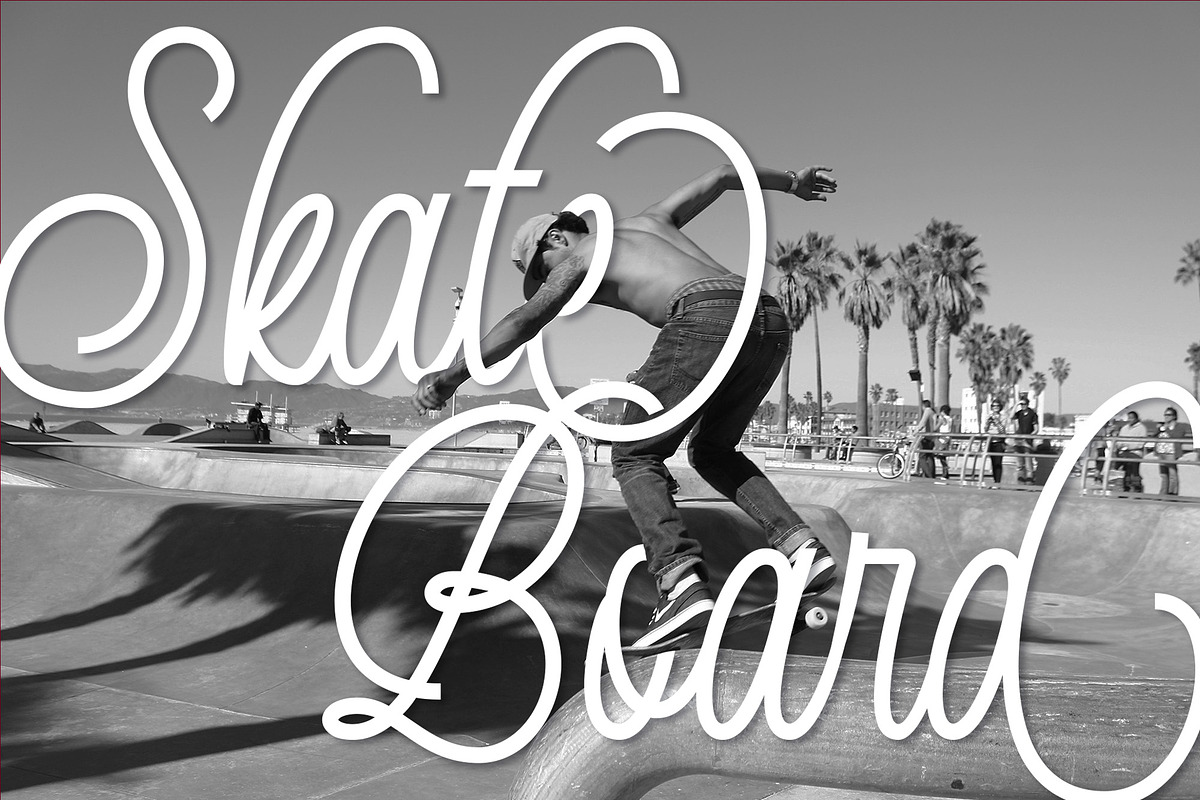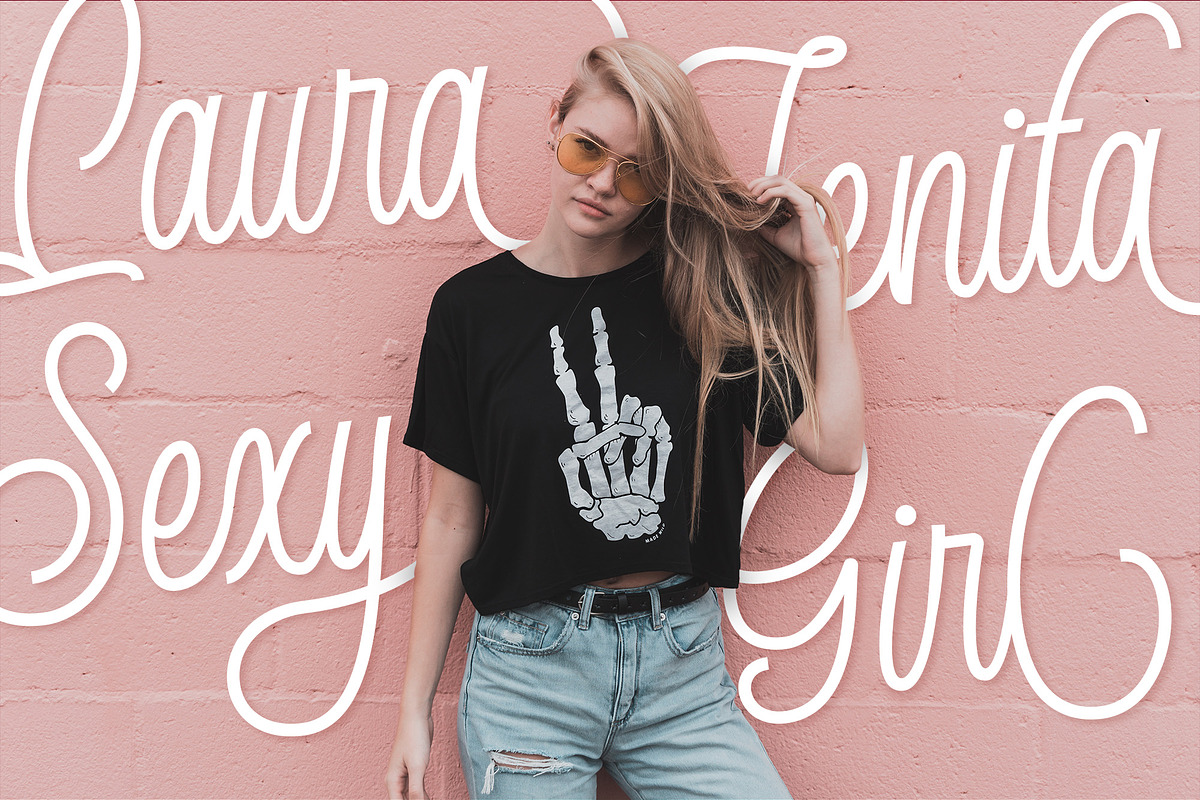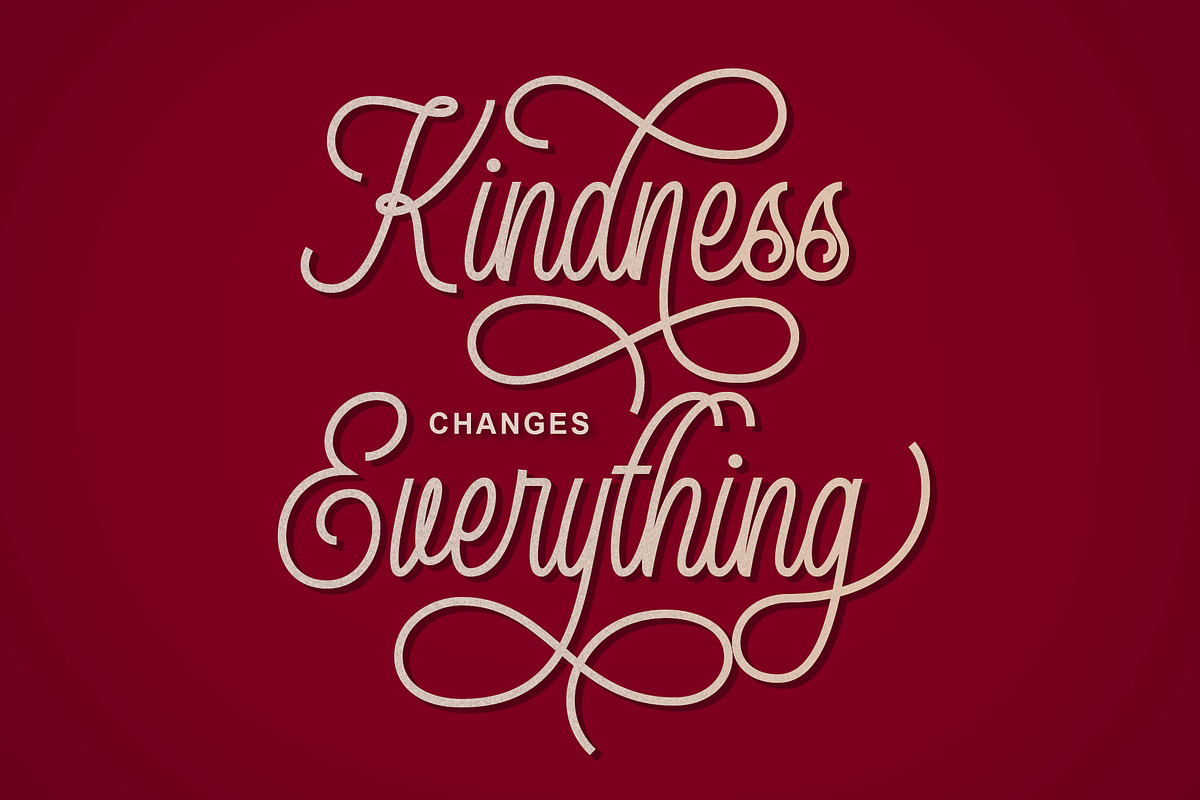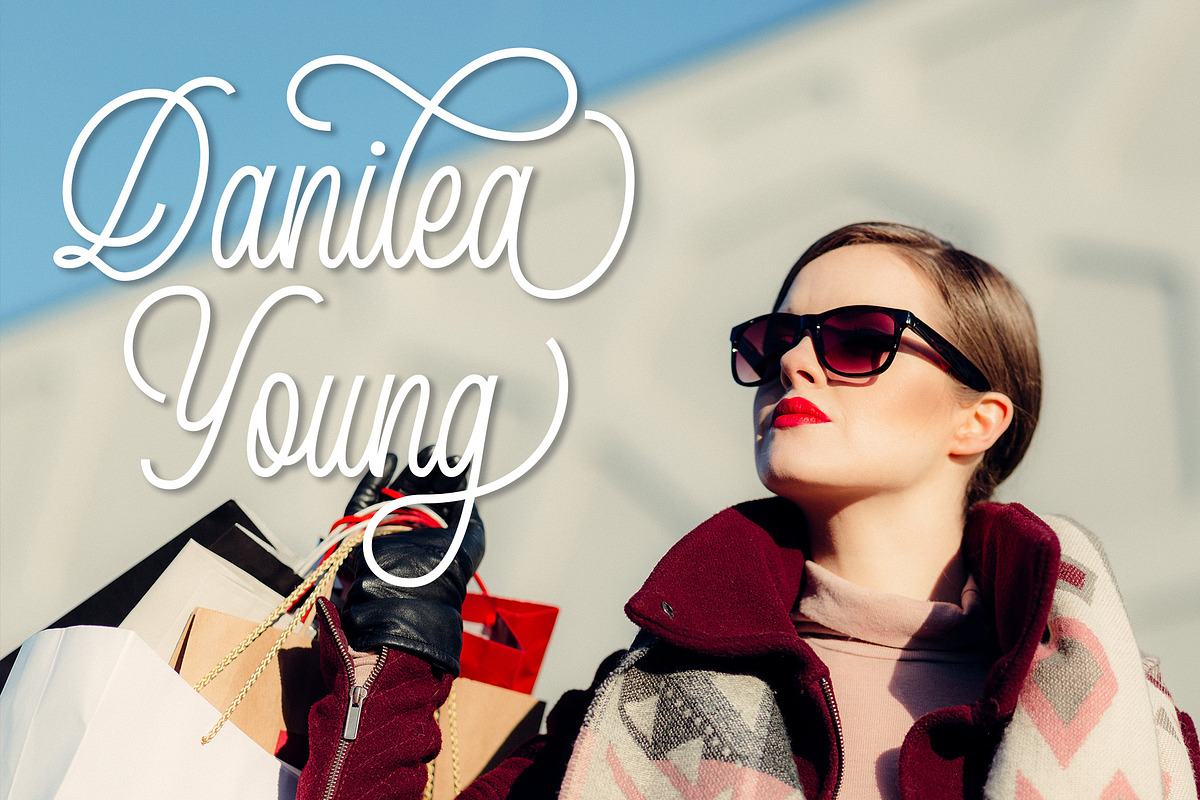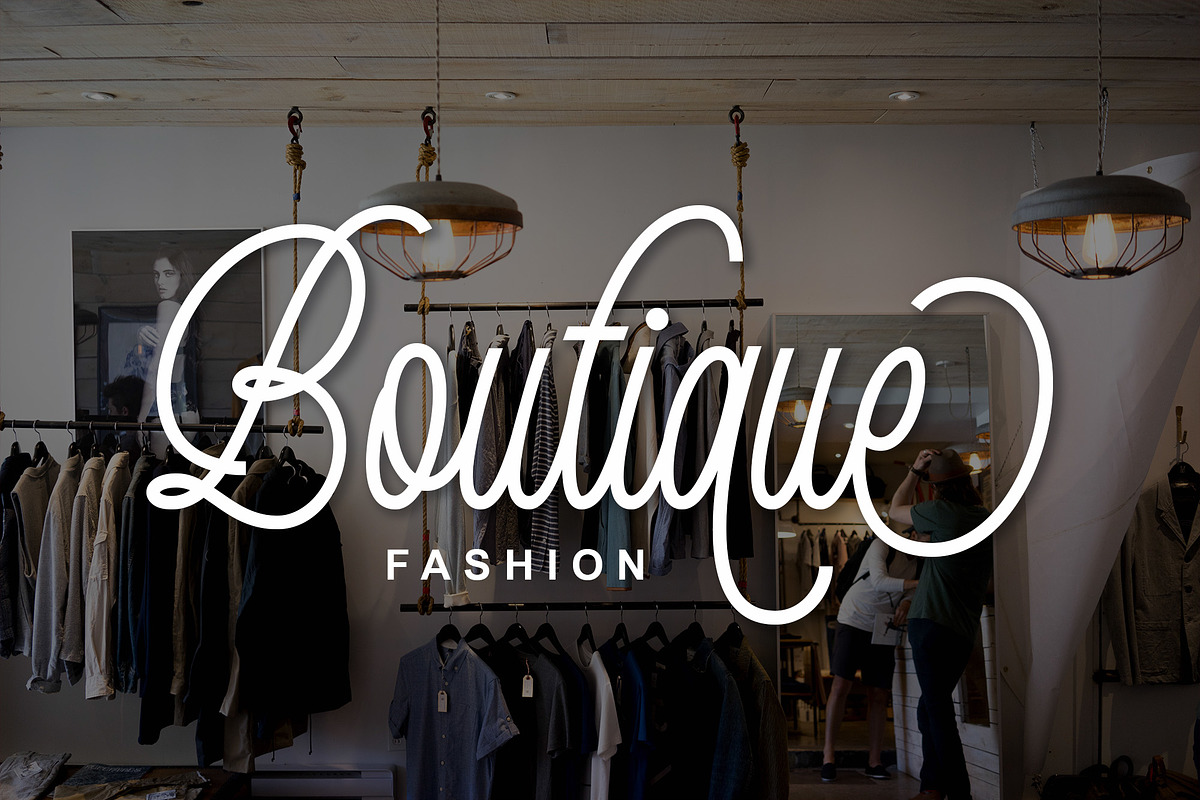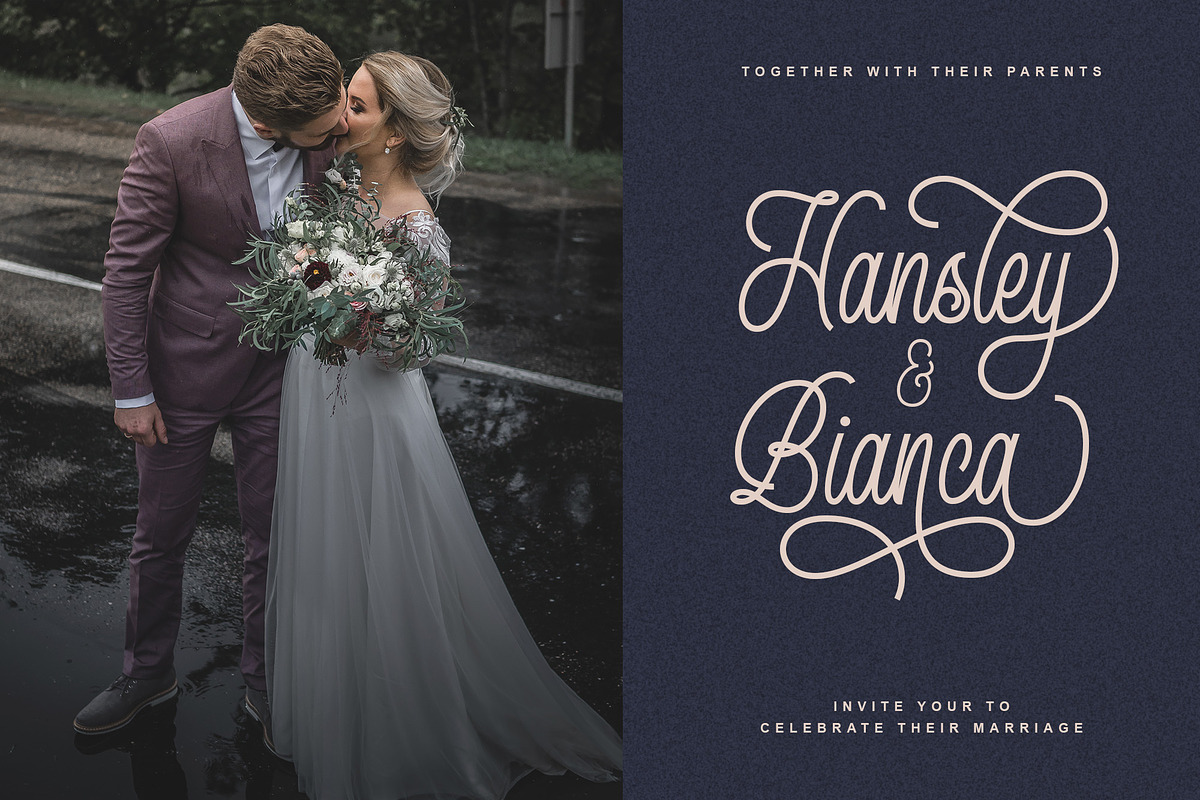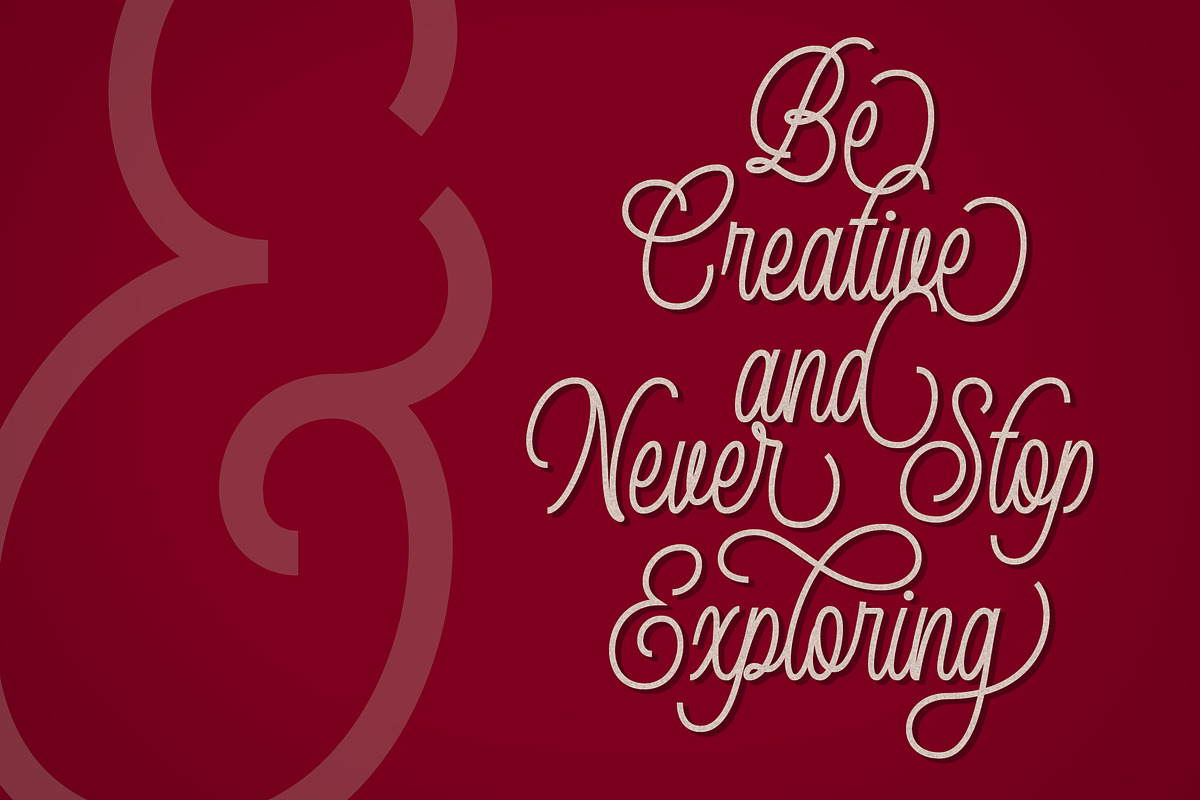
Queenline Script Font
Introducing a new monoline script called Queenline. Queenline came with open type features such contextual alternates, stylistic sets, good for logotype, poster, badge, book cover, tshirt design, packaging and any more.
MULTiLINGUAL ACCENT :
ŽžŠŒšŸÀÁÂÃÄÅÇÈÉÊËÌÍÎÏÐÑÒÓÔÕÖØÙÚÛÜÝßàáâãäåçèéêëìíîïðñòóôõöøùúûüýÿ